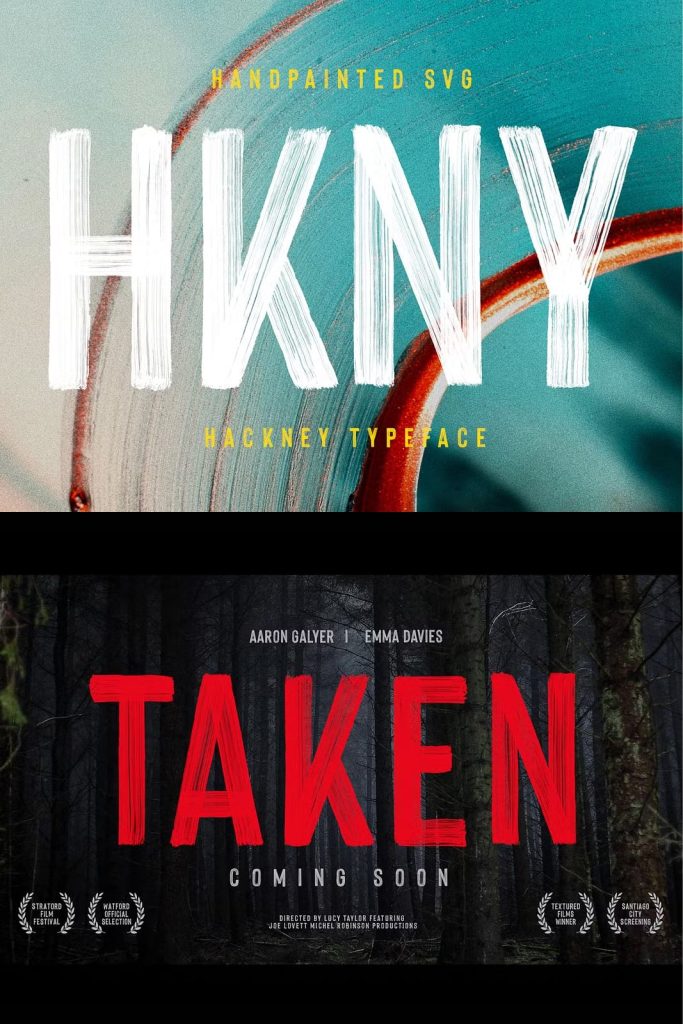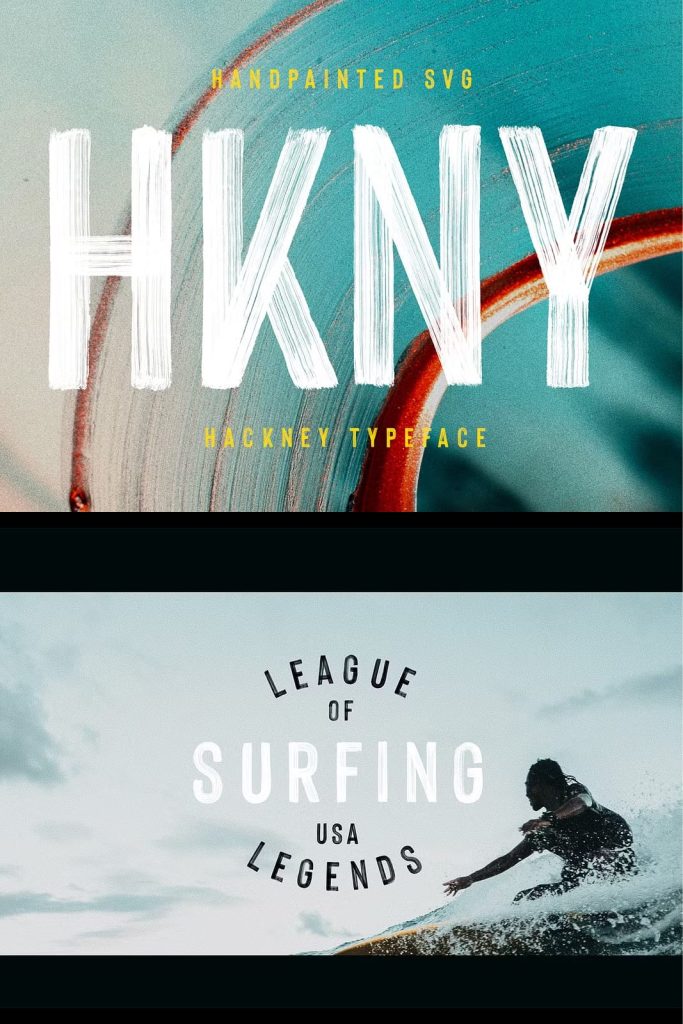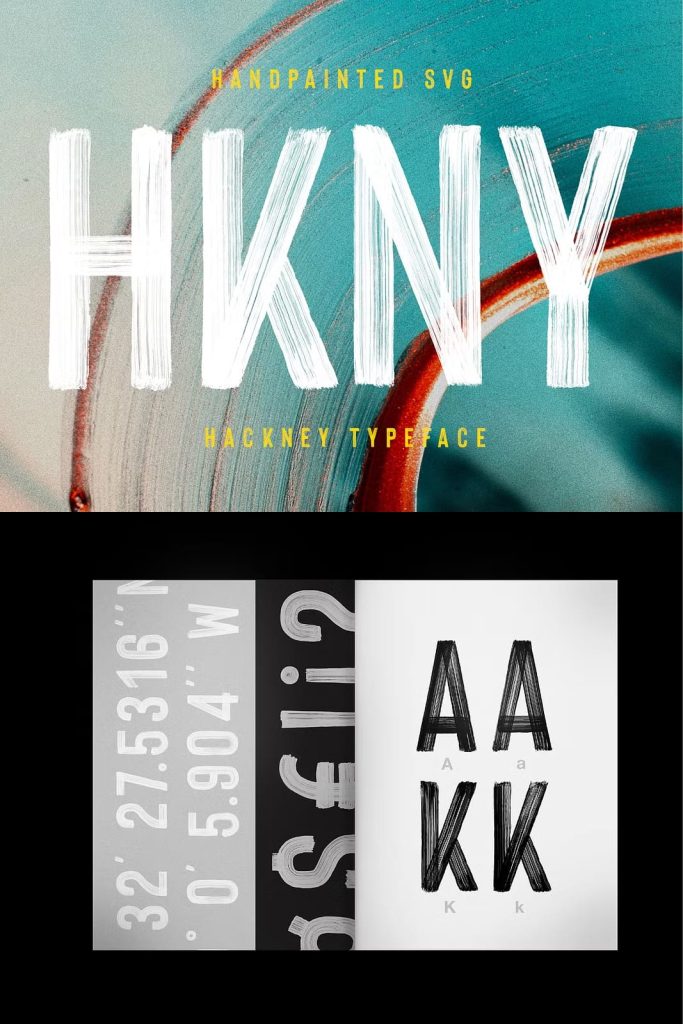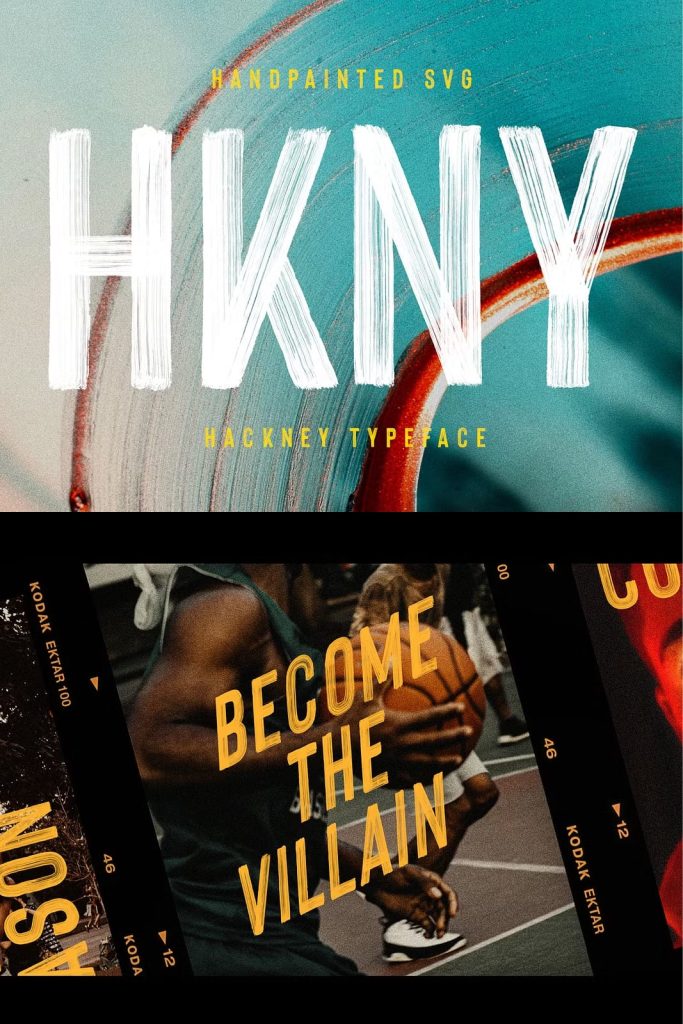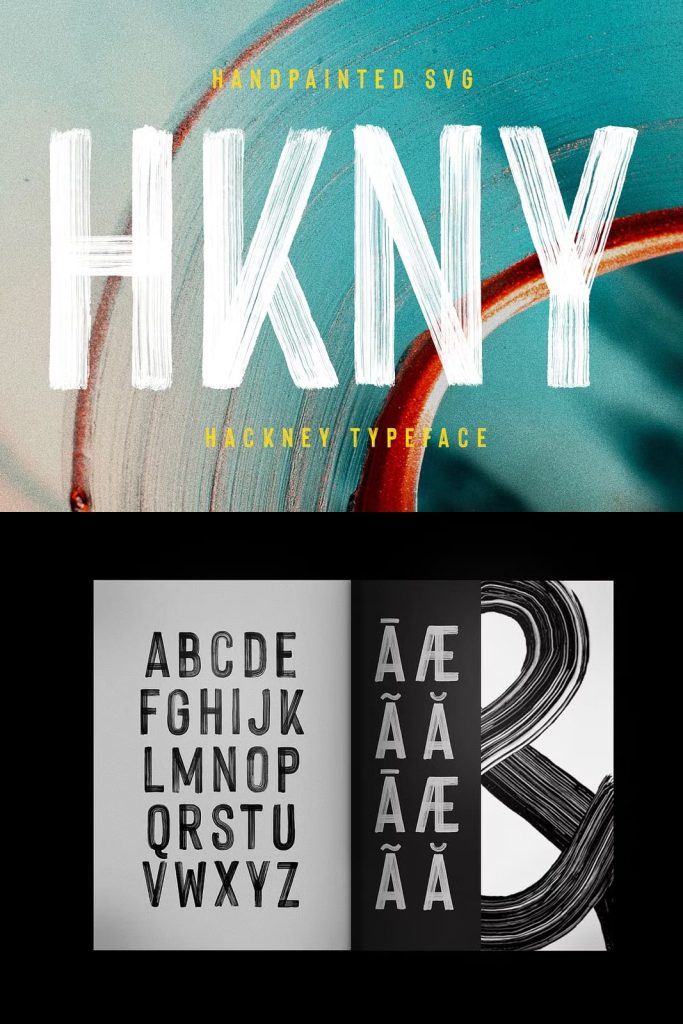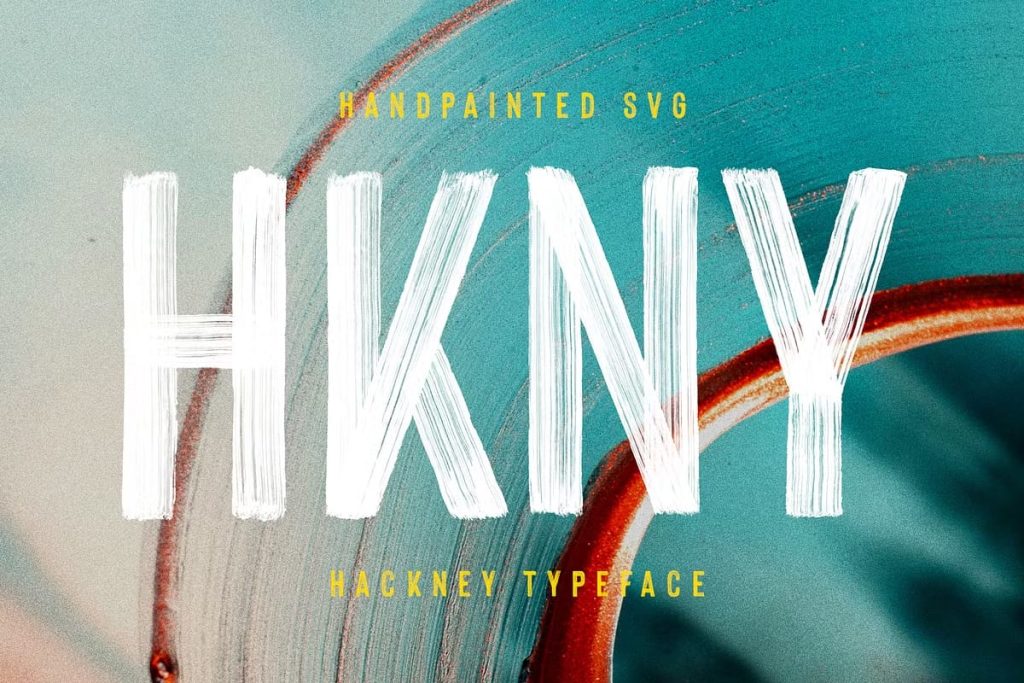
Hackney is entirely hand-painted sans serif. A raw, bold, condensed font, with brushy imperfections and an earthy realism.
SVG fonts or colours fonts are a great new format, which makes it possible to add loads of detail and texture not possible before. Hackney SVG keeps all the incredible definition of the real painted strokes as a transparent texture, so it gives you a proper hand-painted effect, without you having to do anything (or go near paint). SVG fonts work just like normal fonts, but allow so much more customisation and look hyper-real. They can be used in any colour and on any background.